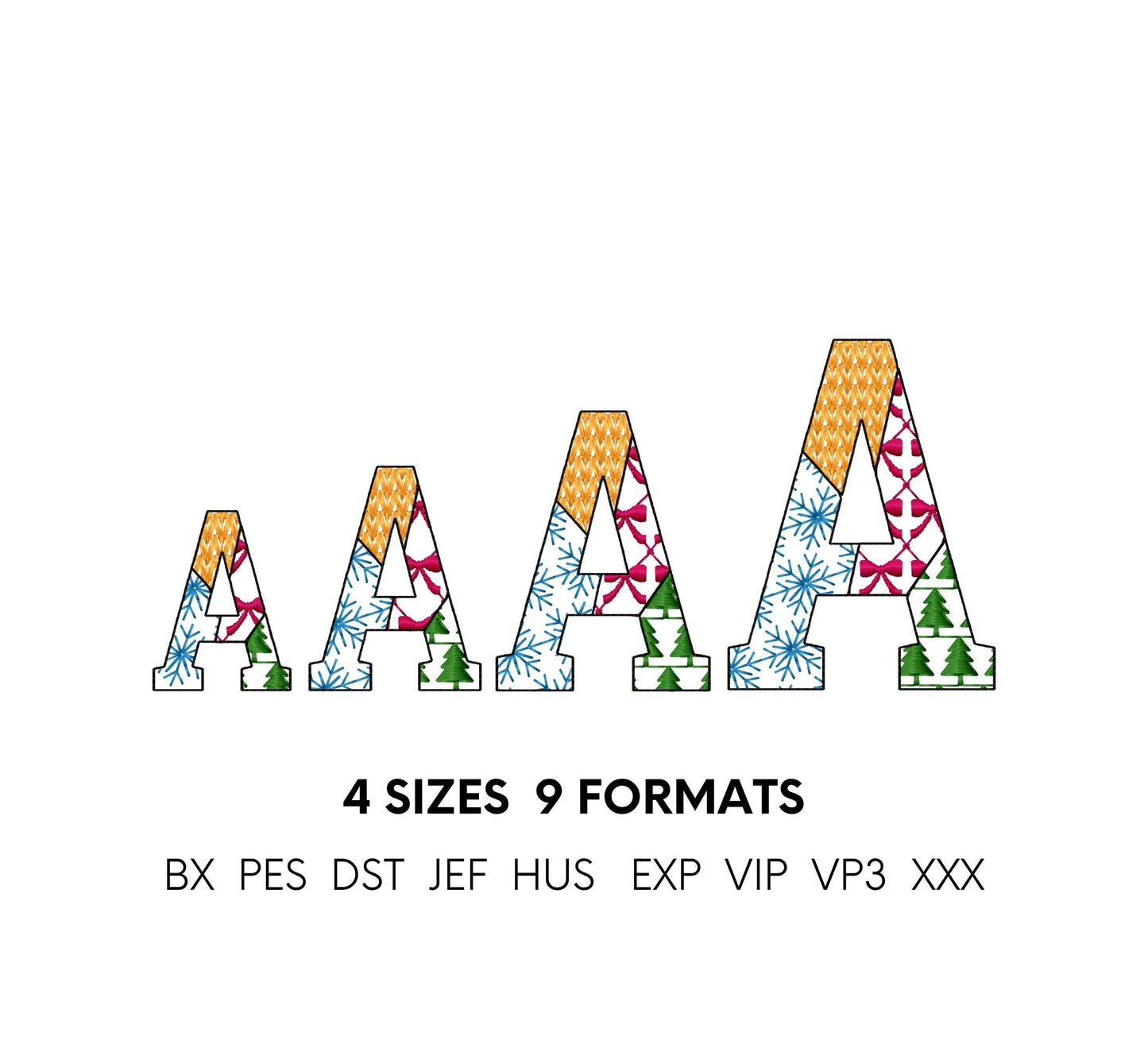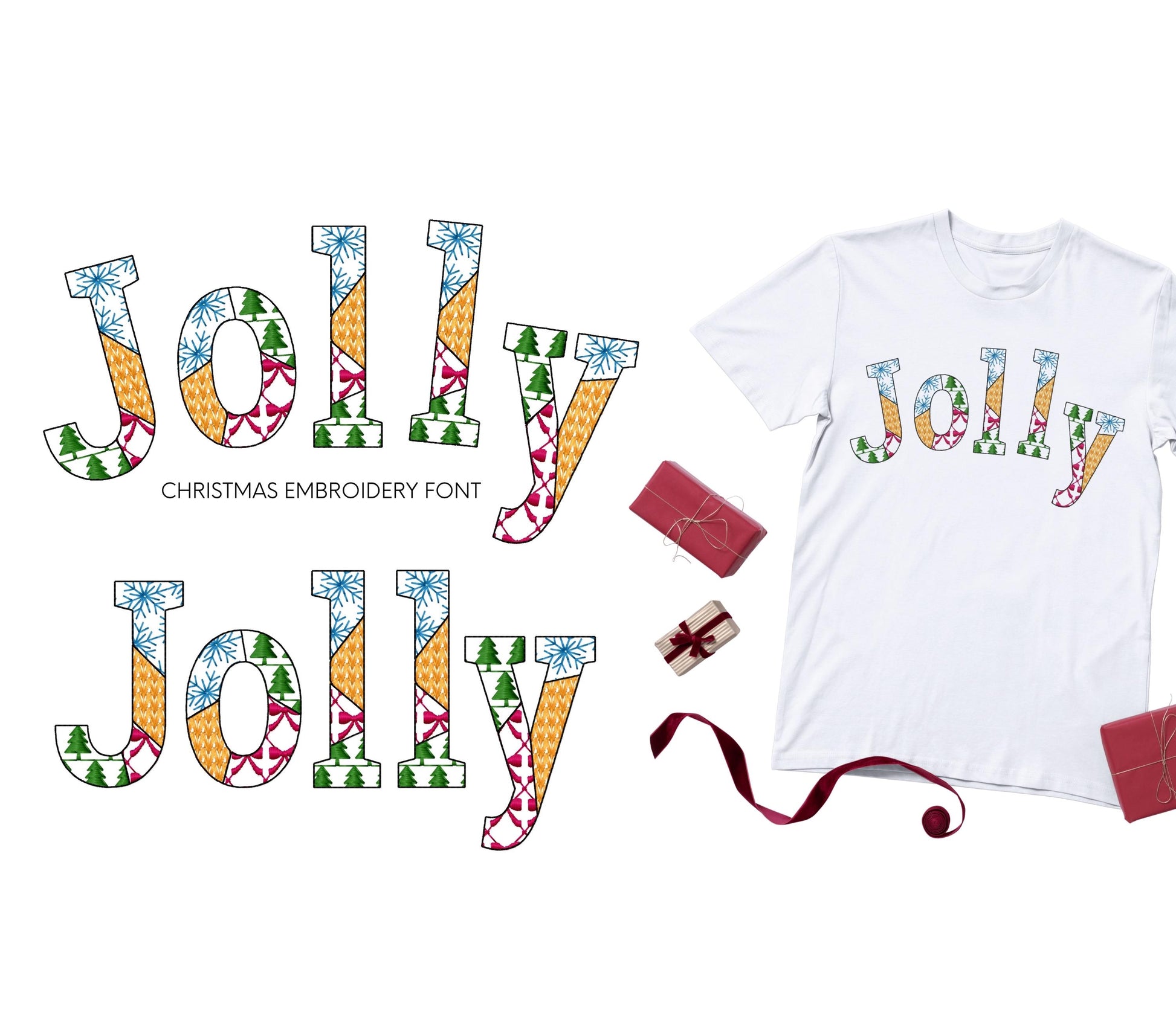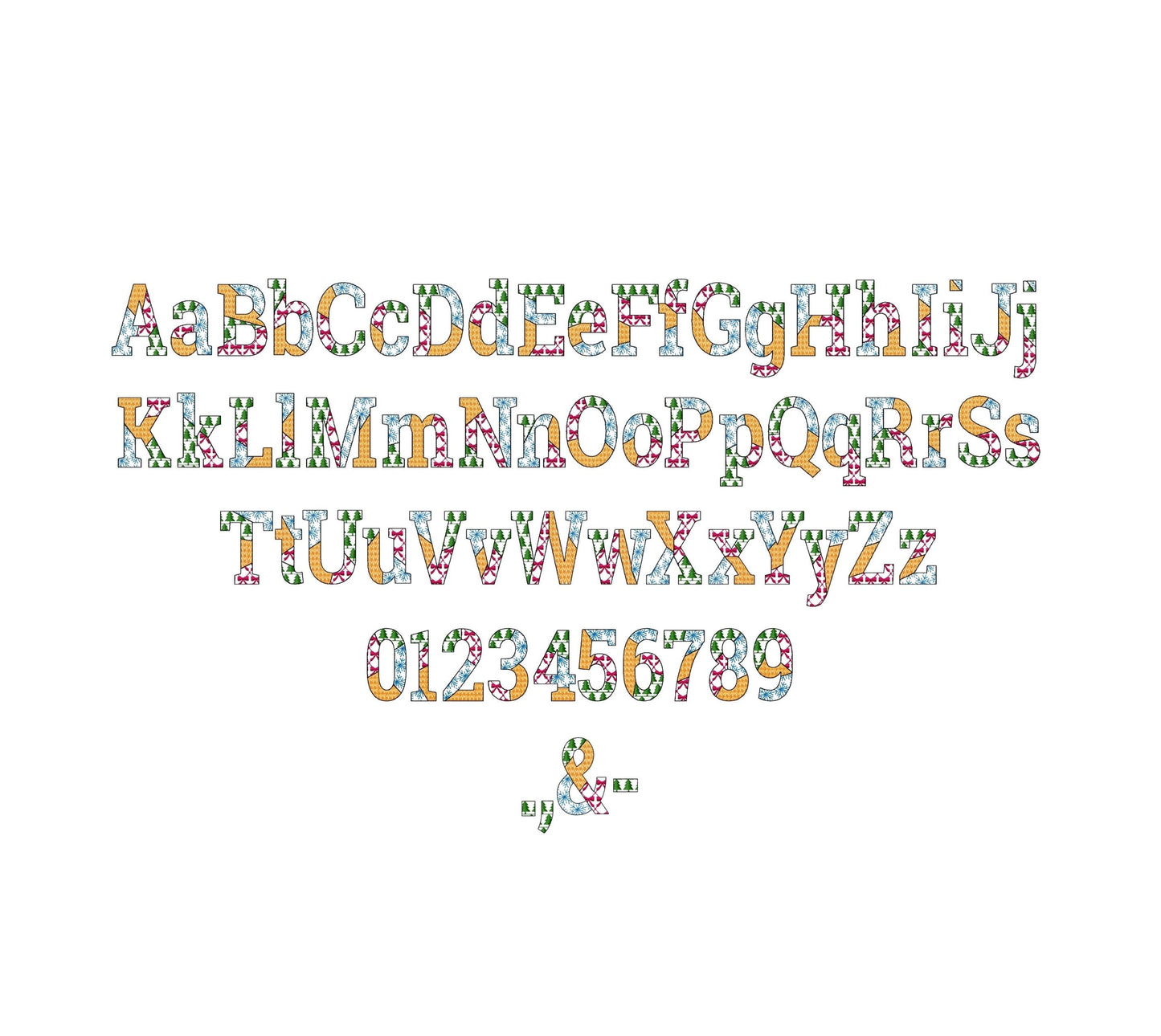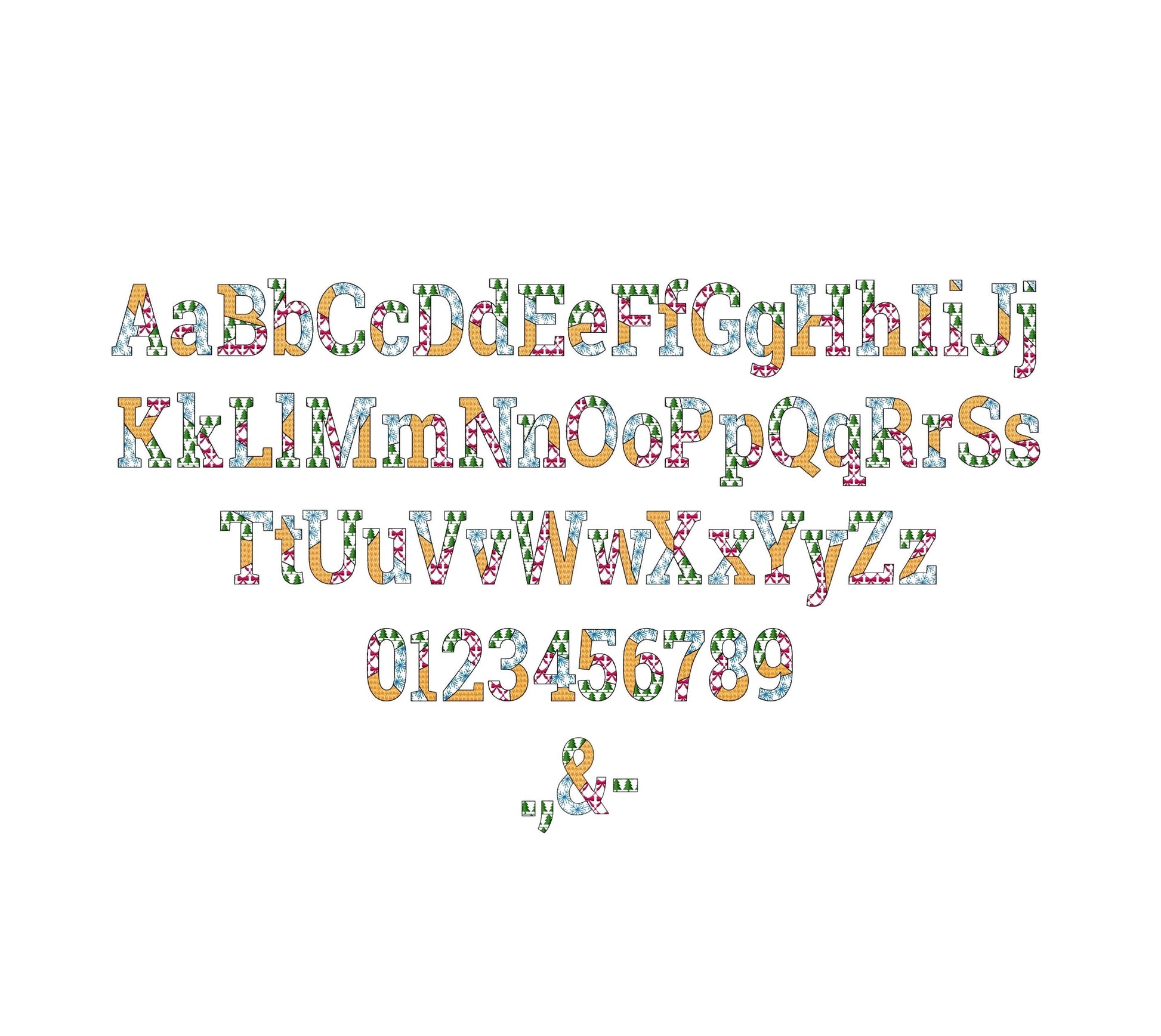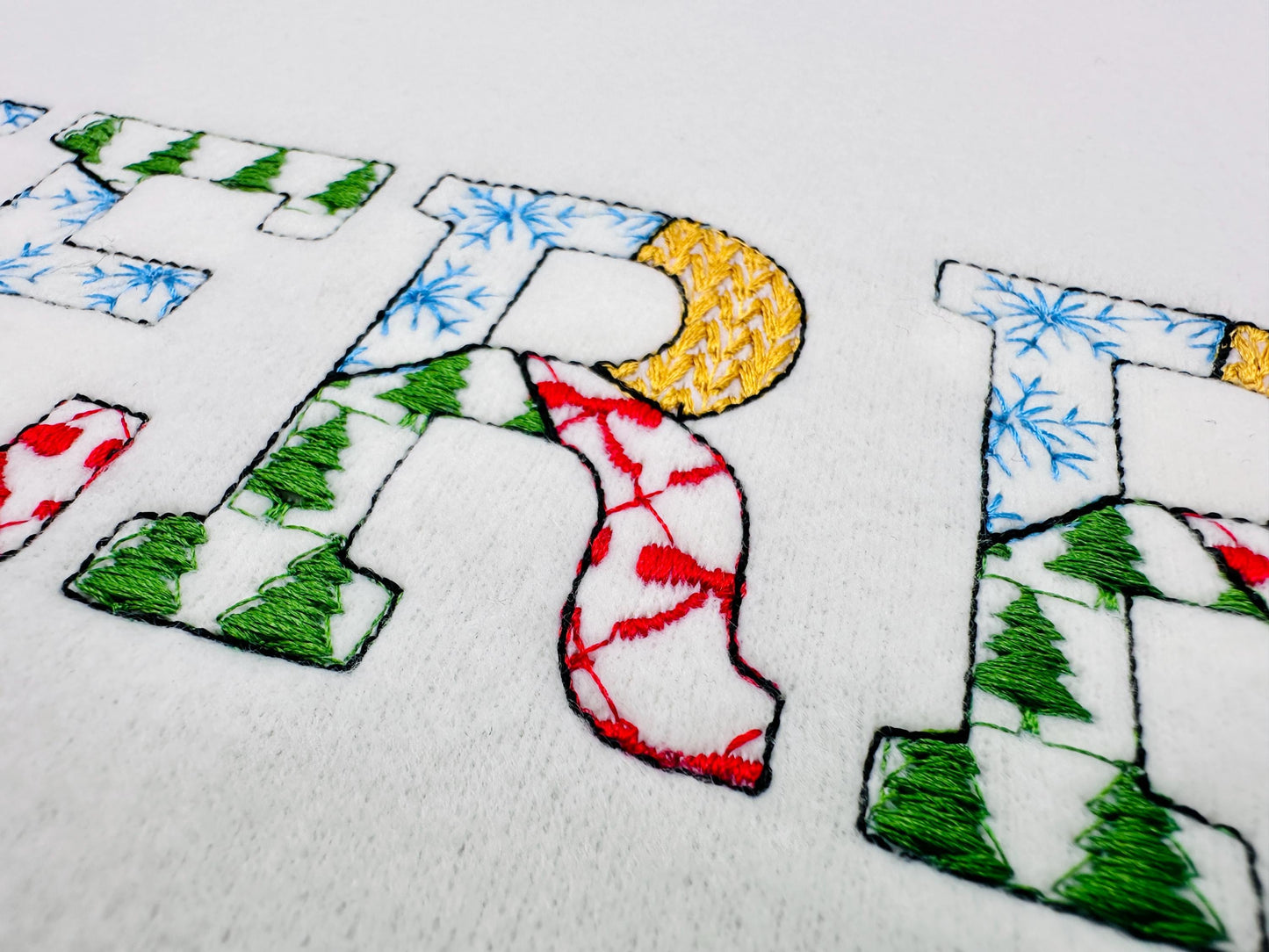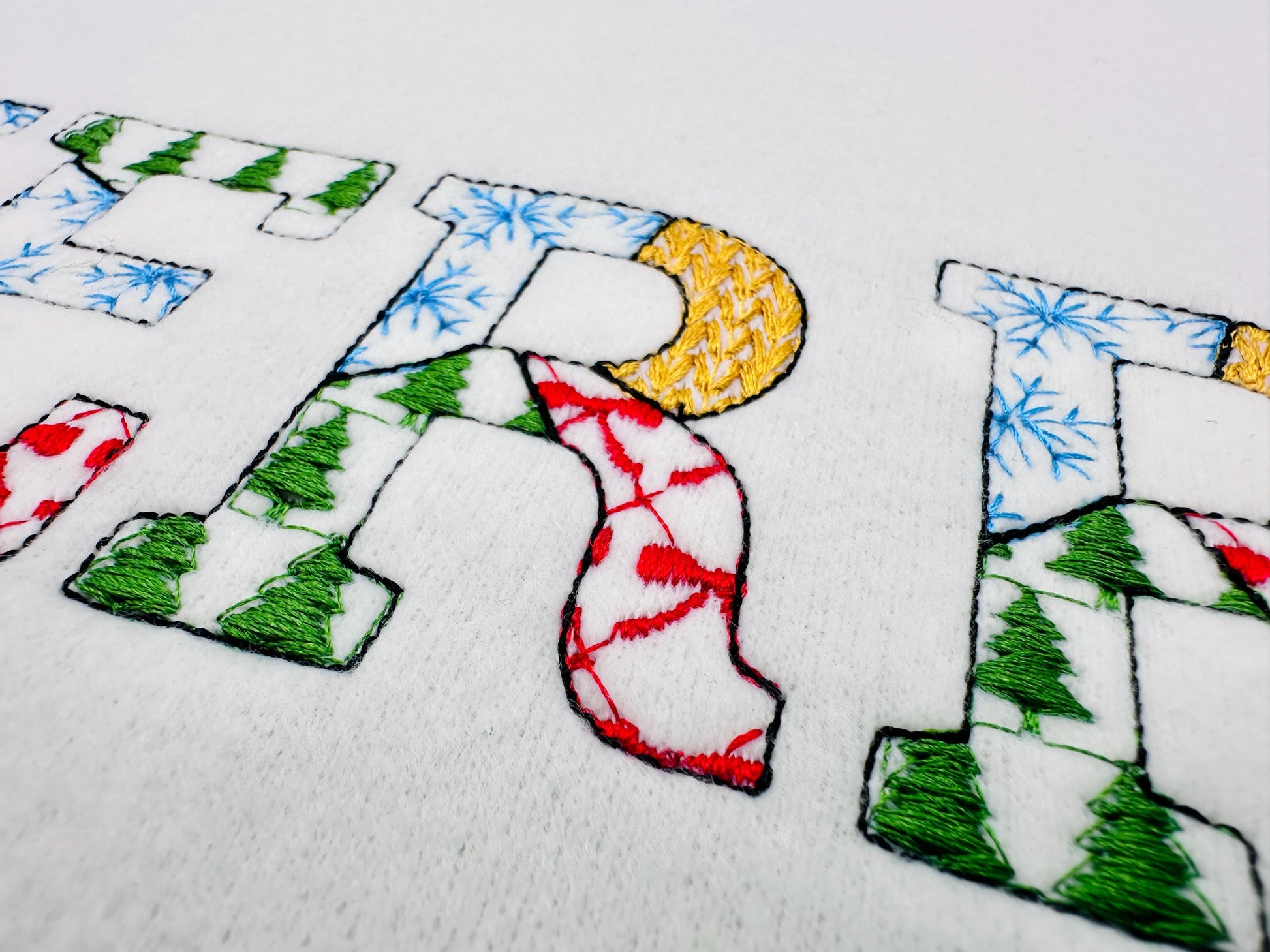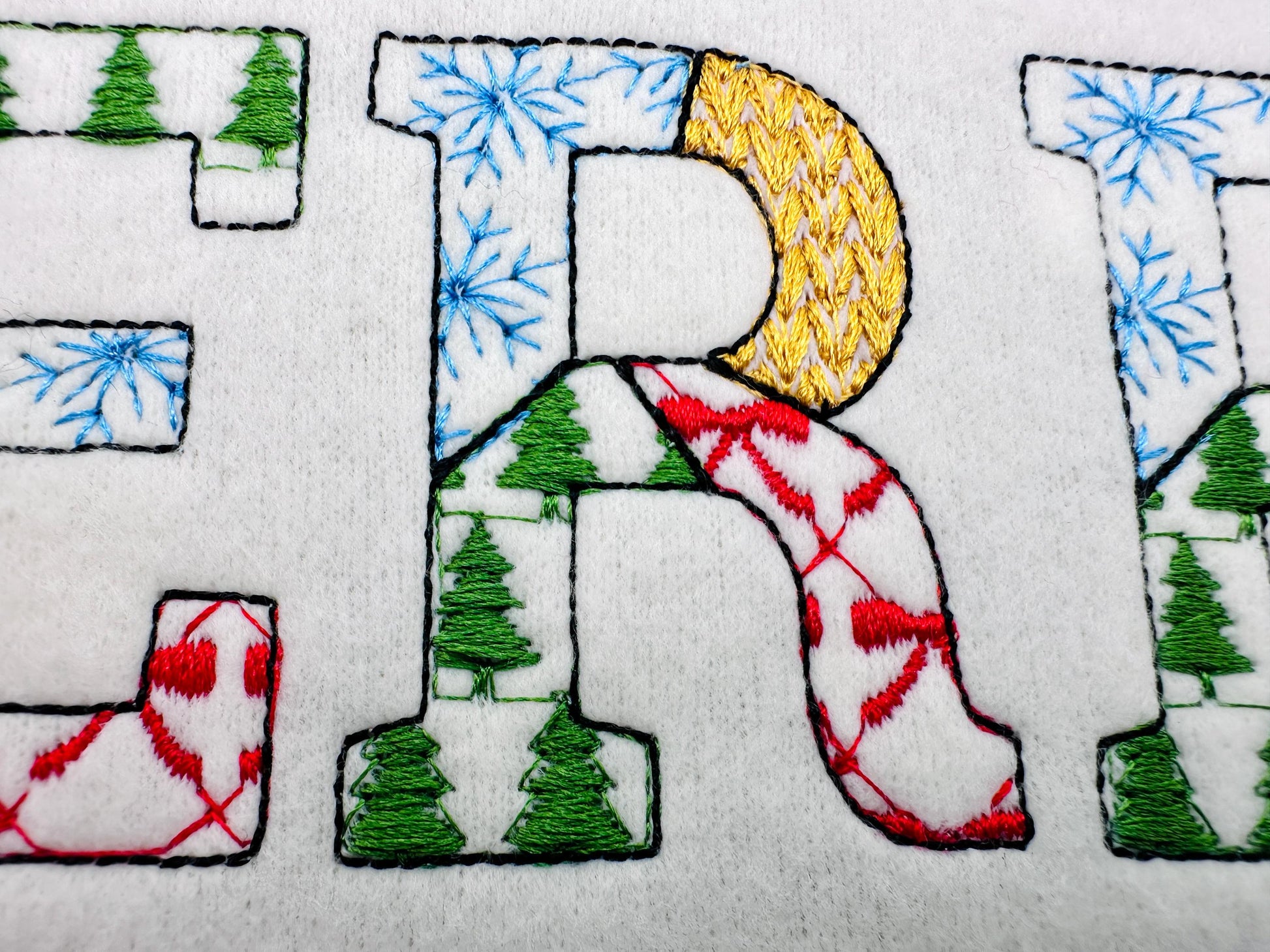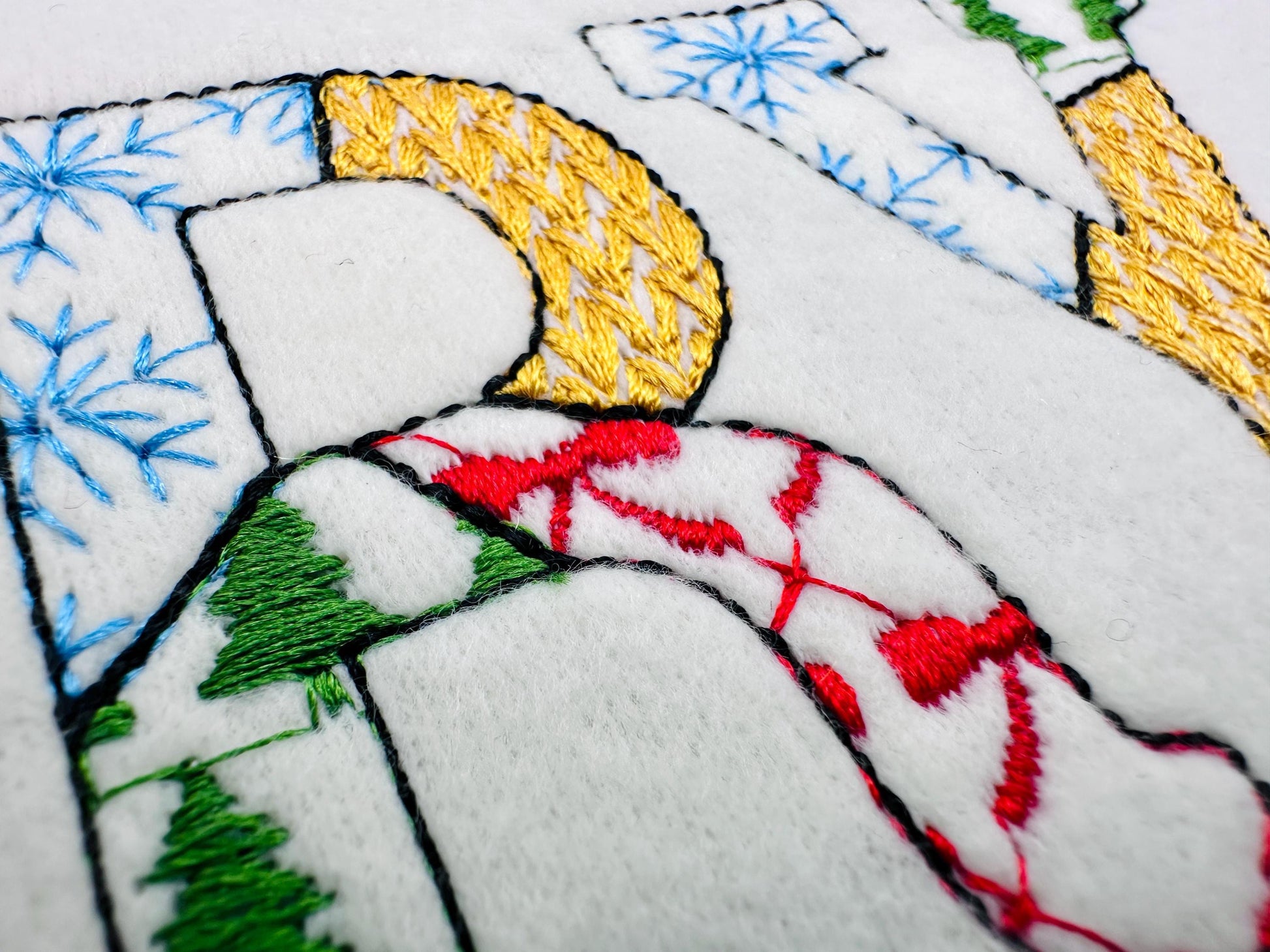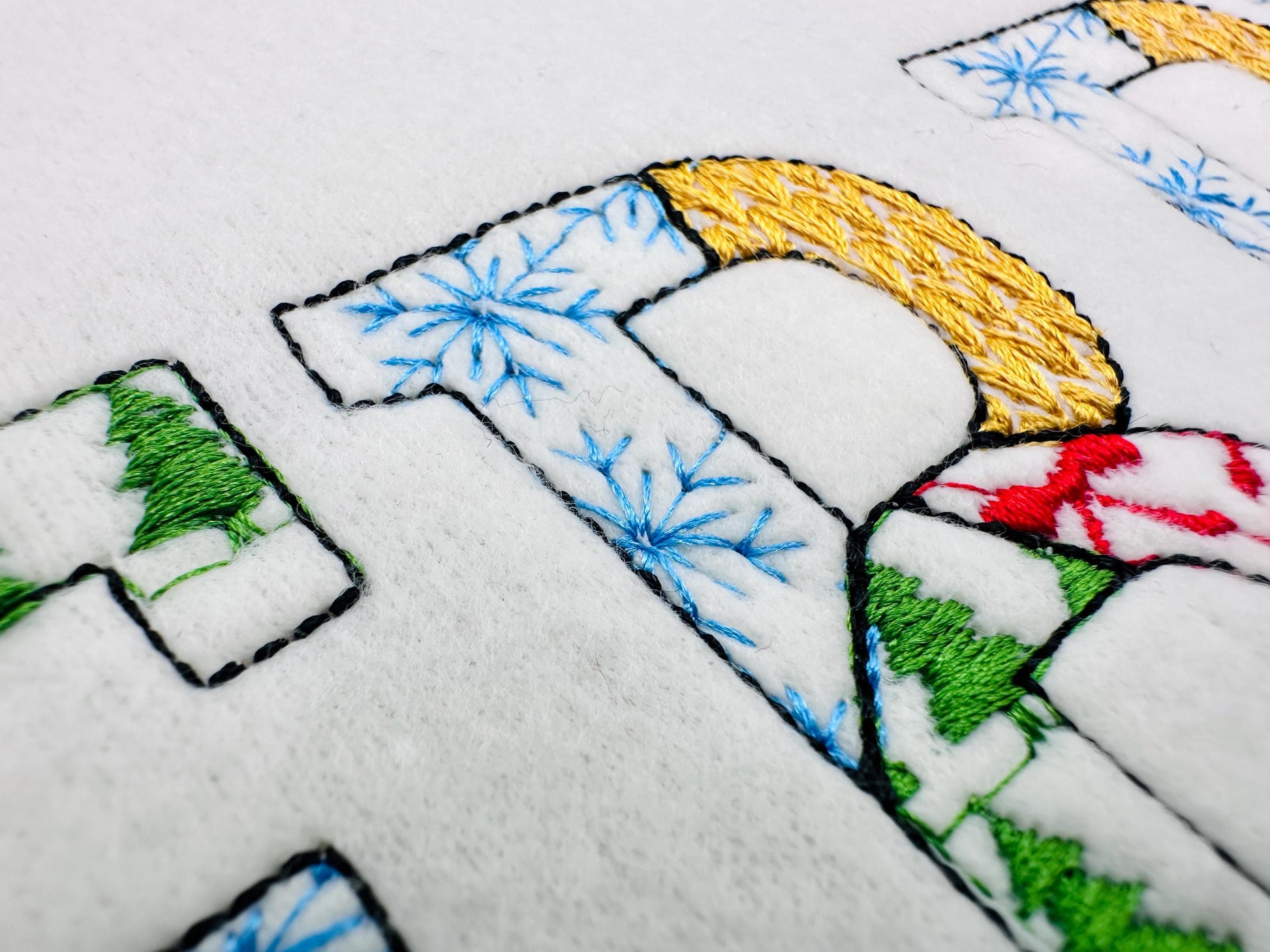
Christmas Theme Patterned Block Font
The letters come in four sizes: 1.8, 2.2, 2.8 and 3.5 inches. Christmas patterns are stitched into the block letters and the fabric shows through. Includes uppercase and lowercase letters A to Z, numbers 0 to 9 and punctuation.
- Christmas patchwork block font
- 4 sizes: 1.8, 2.2, 2.8 and 3.5 in